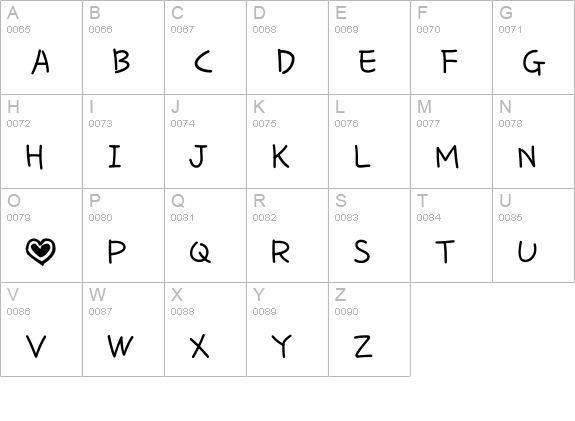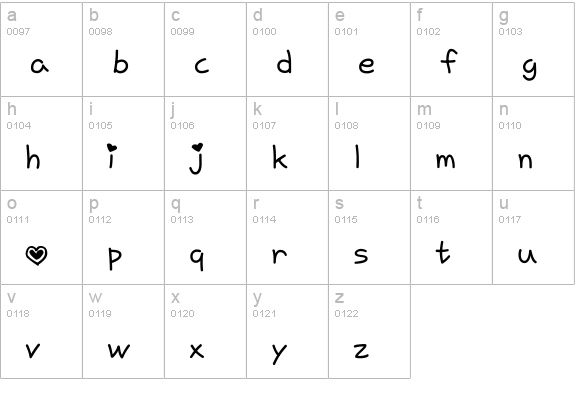
Love of Love is a beautifully designed font created by OUBYC. This font captures the essence of love, with its elegant curves and delicate strokes. It exudes a sense of warmth and tenderness, making it the perfect choice for any romantic project or heartfelt message. The Love of Love font is not only visually stunning, but it also has a special element that sets it apart from other fonts - it is completely free! Yes, you read that right. This amazing font is freely available to download at FontsMarket.com. Whether you're designing wedding invitations, crafting a love letter, or creating a heartfelt greeting card, Love of Love will bring your words to life. Its flowing lines and graceful shapes add a touch of romance and sophistication to any project. Imagine using Love of Love to write a heartfelt message to your significant other or to create a beautiful quote about love. The elegant letters in this font will convey your emotions with style and grace. It's like the font itself is whispering words of love and affection. Not only is Love of Love visually stunning, but it is also incredibly versatile. It can be used in a wide range of design projects, from branding to social media graphics, from advertisements to product packaging. Its timeless beauty and classic appeal make it a go-to choice for designers and creatives alike. So why wait? Experience the beauty and charm of Love by OUBYC font today. Download it freely at FontsMarket.com and let your creativity soar. Whether you're a professional designer or someone who simply appreciates the art of typography, Love of Love will leave you spellbound.